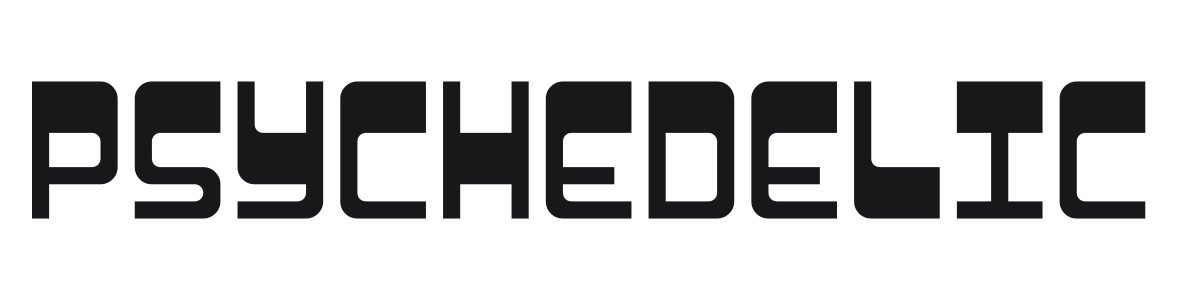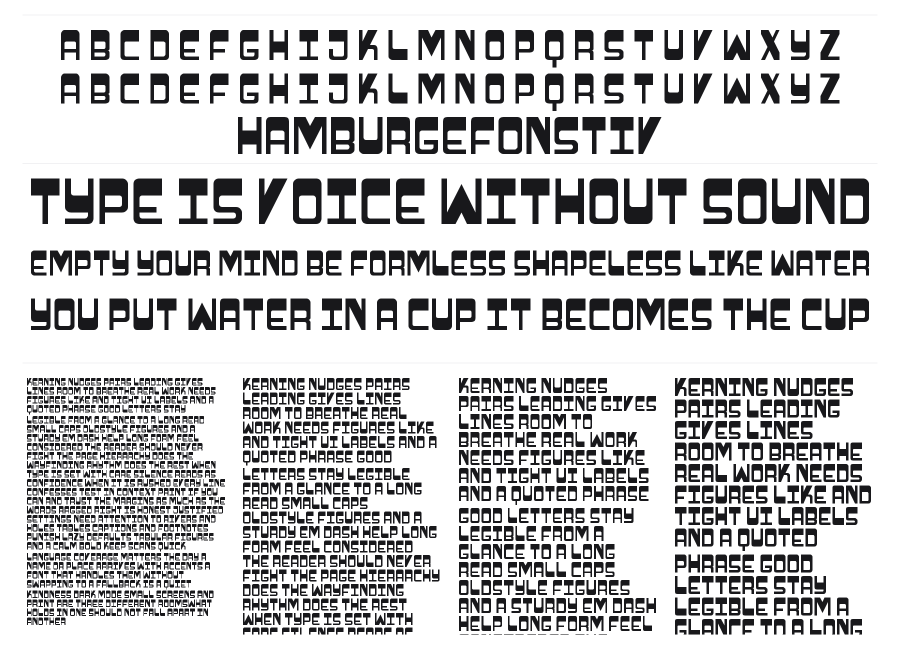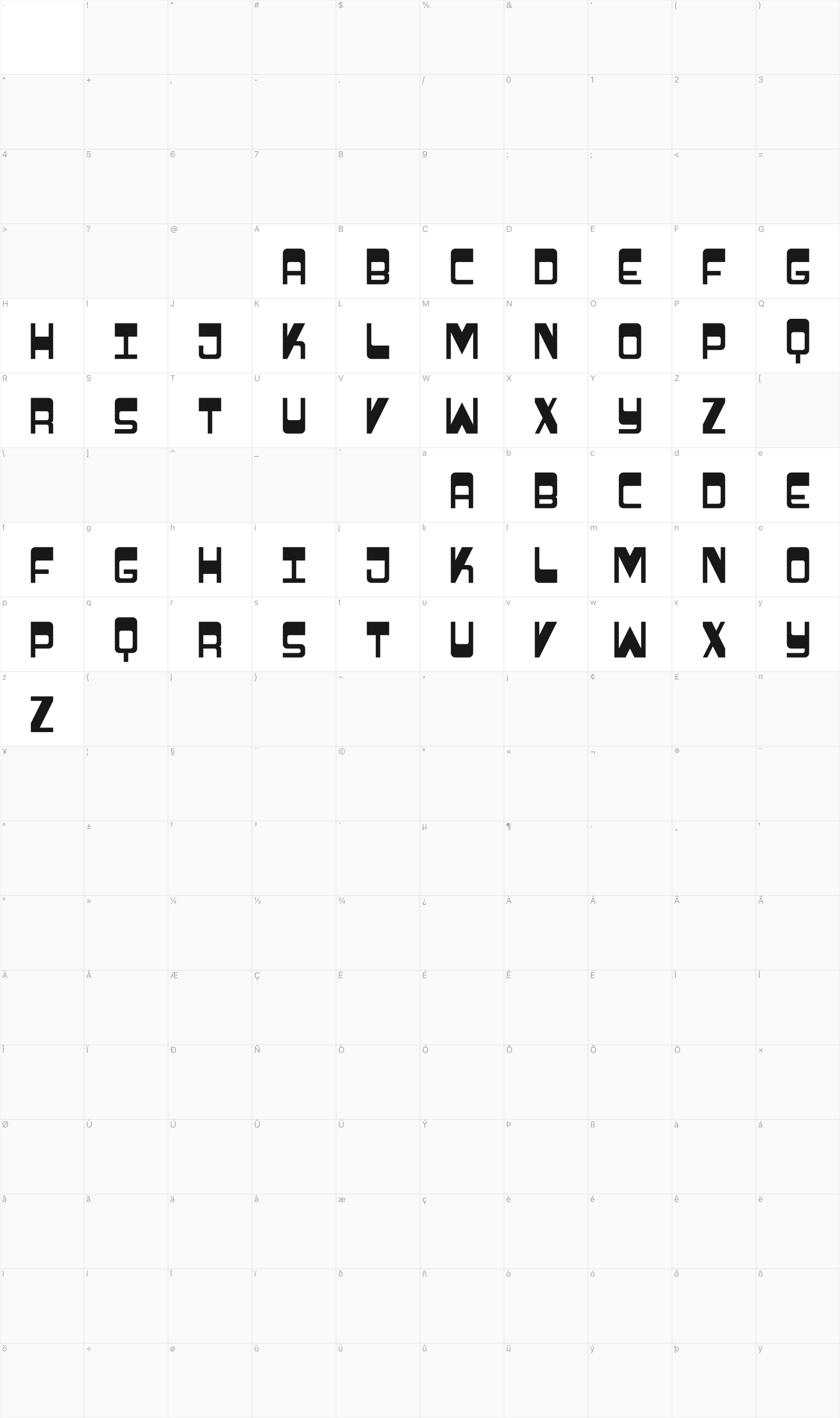
Psychedelic
Psychedelic is a heavy square sans built from thick geometric blocks with angular cutaways that keep the design feeling restless and unconventional. Each character breaks slightly from the grid, giving the font a fractured, handcrafted quality despite its rigid construction. It sits comfortably in music, gaming, and entertainment contexts where something bold and a little off-kilter is the point.